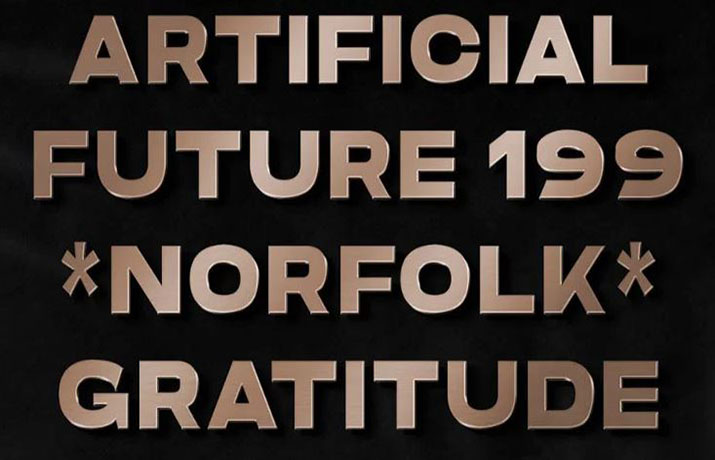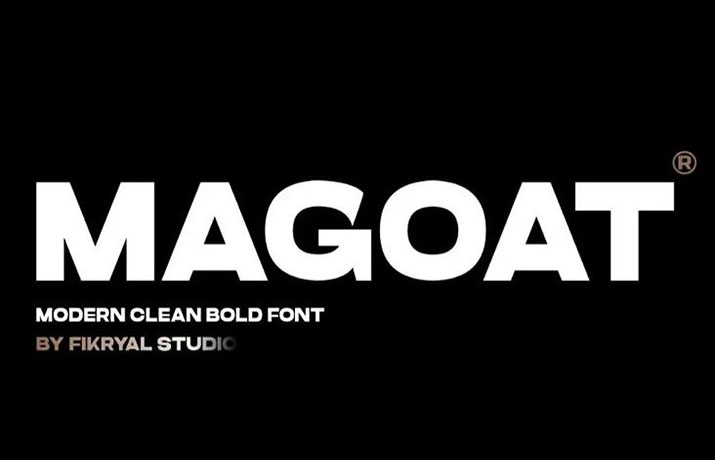
Magoat Font is a modern sans serif typeface that is ideal for a contemporary and bold touch to your graphic design projects. It was designed by Muhammad Fikry and published by Fikryal.
With its distinctive all-caps style, it can grab attention with clarity and boldness. Each character is designed with precision, exhibiting the cleanliness and modernity that defines this font.
With its bold shapes, it is well-suited for titles, headlines, branding elements, body texts, marketing, logos, and other design elements that require a strong and clear presence.
“Magoat typeface is available in a single weight along with Open Type features. This single style contains 240 unique glyphs and also supports 68 multilingual languages.”
Style: | Sans Serif, Bold, Display |
- Headlines, web content, posters, brochures, flyers, logo designs, book covers, quotes, paragraphs, business cards, special event cards, product designs, product packaging, advertisements, social media banners, headers, flyers, YouTube thumbnails, signs, titles, textual motives, and many other uses are ideal for this high-quality font.
This font supports 68 languages.